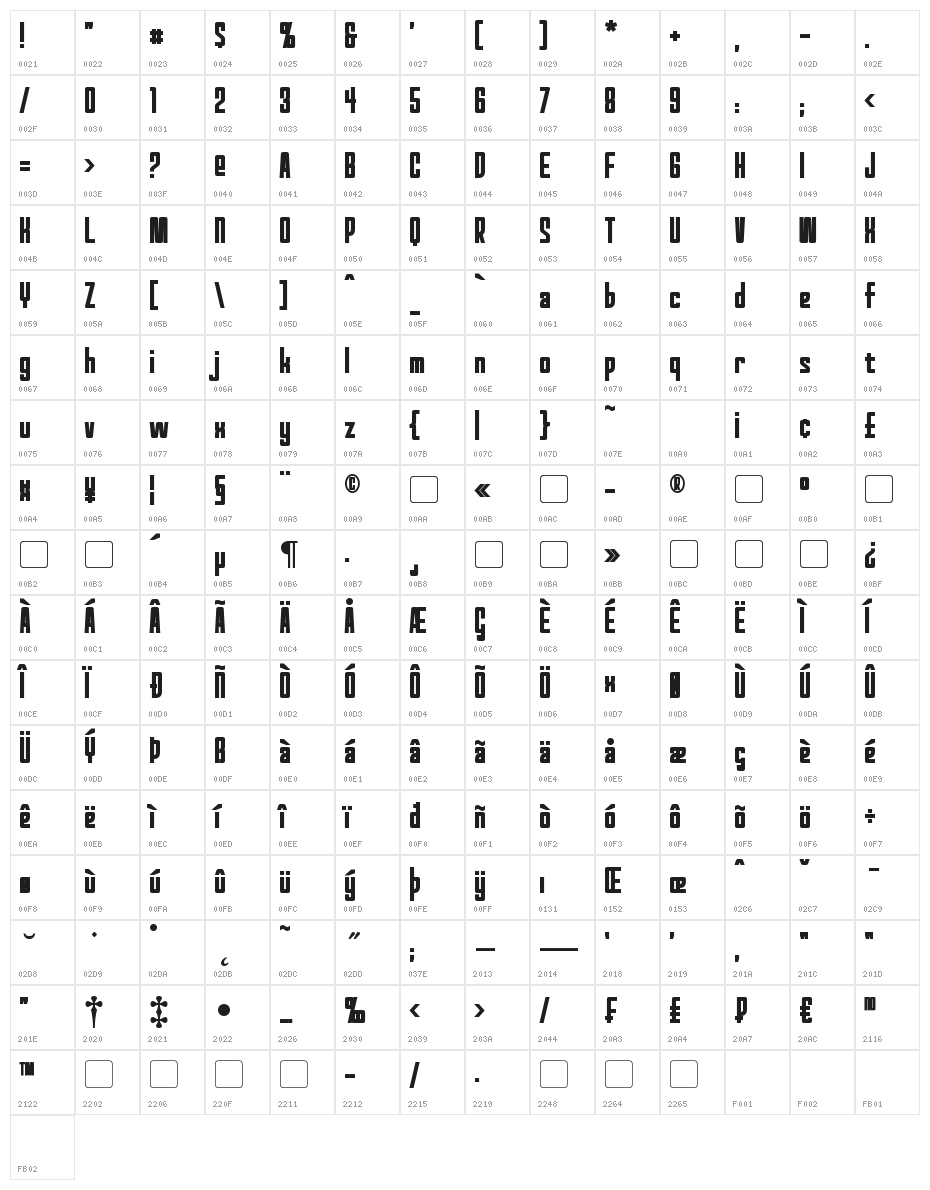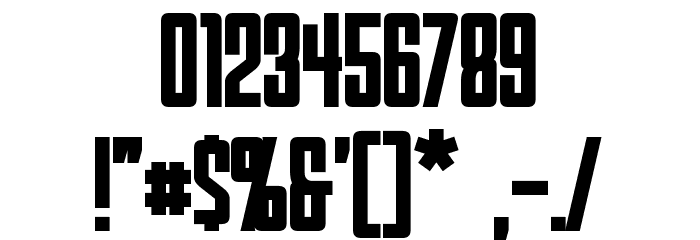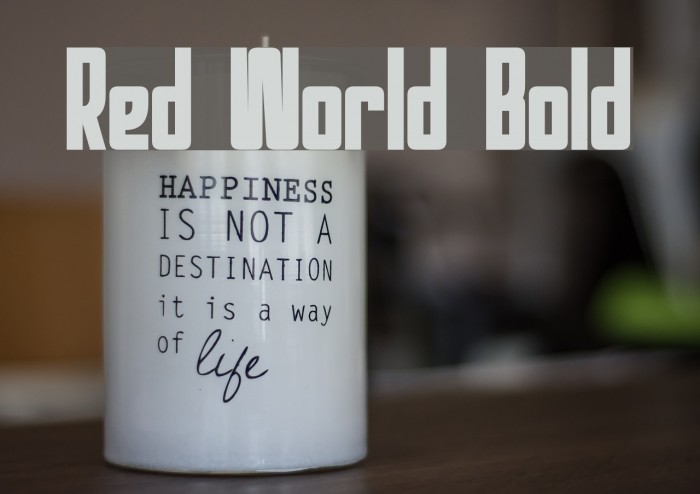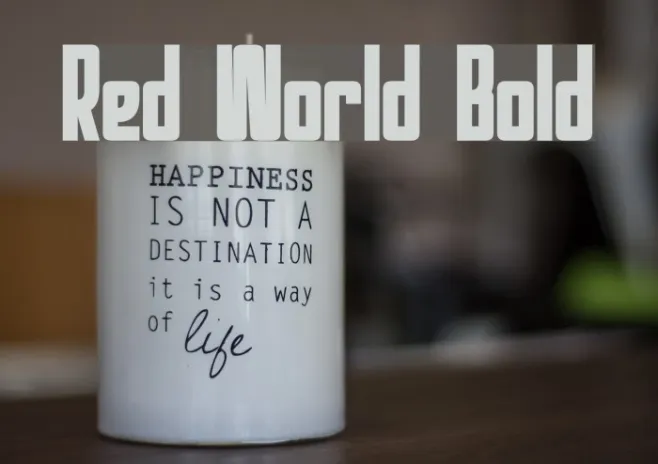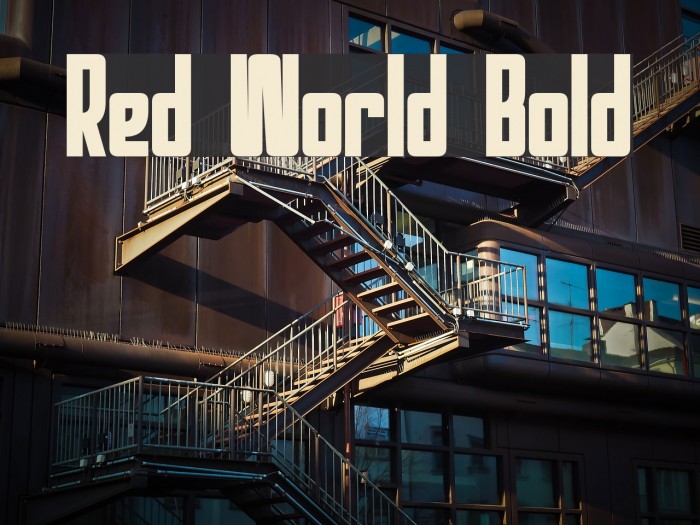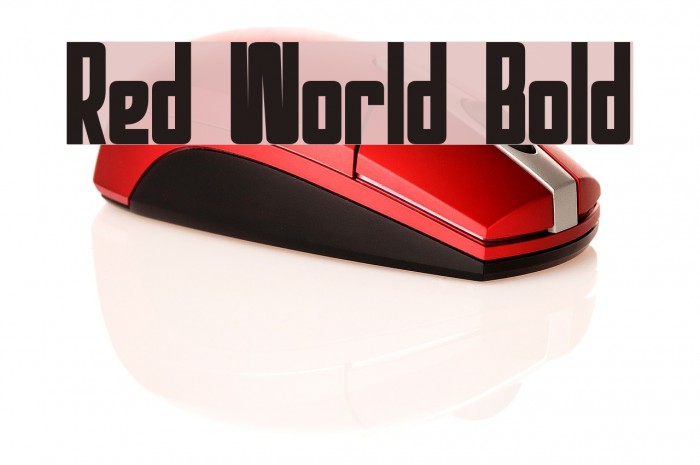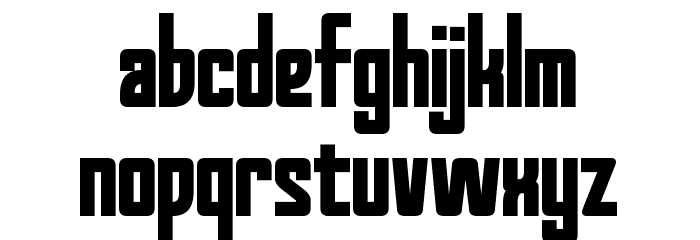
Red World Bold Font
Red World Bold Description
This bold and impactful font features a strong, geometric design with thick, uniform strokes that create a powerful presence on the page. The uppercase letters are particularly striking, with a blocky and robust appearance that commands attention. The lowercase letters maintain the same boldness, ensuring consistency throughout the text. The numerals are equally bold, making them ideal for situations where clarity and emphasis are needed. Special characters are designed with the same attention to detail, ensuring they integrate seamlessly with the rest of the font. This font's boldness and geometric style make it perfect for creating eye-catching headlines and titles.